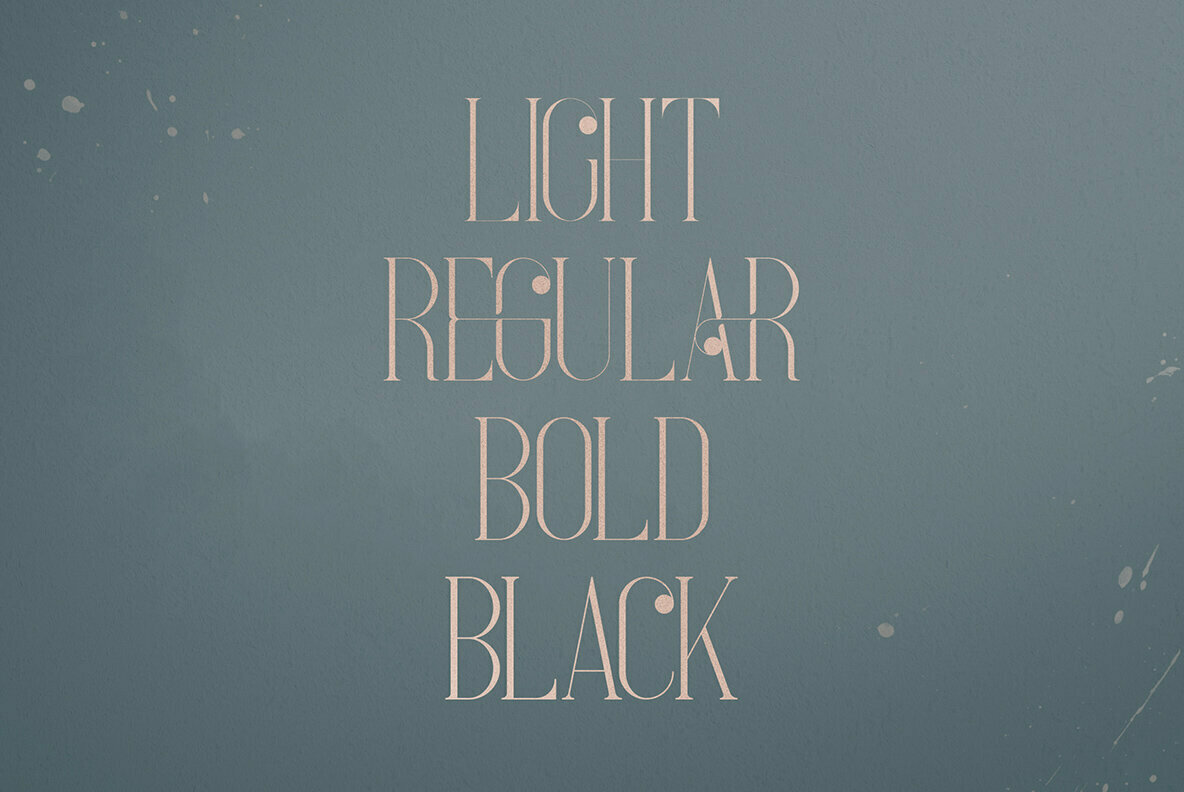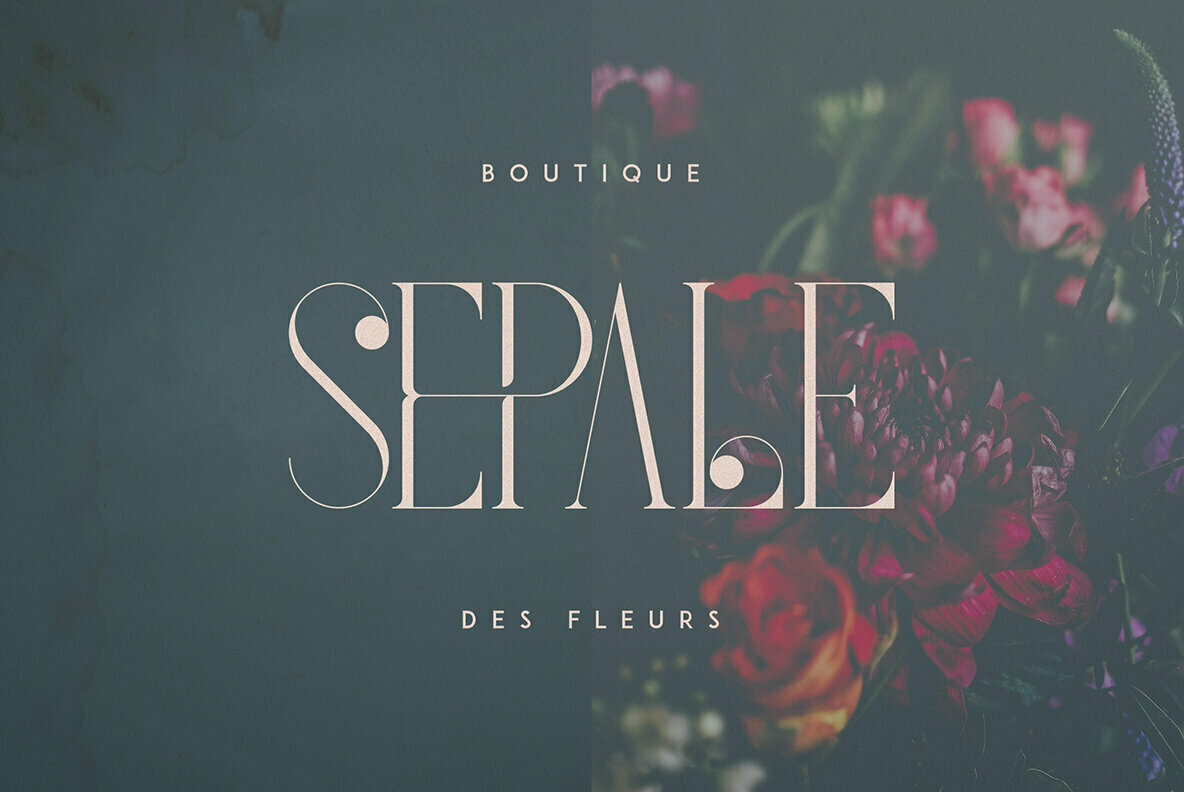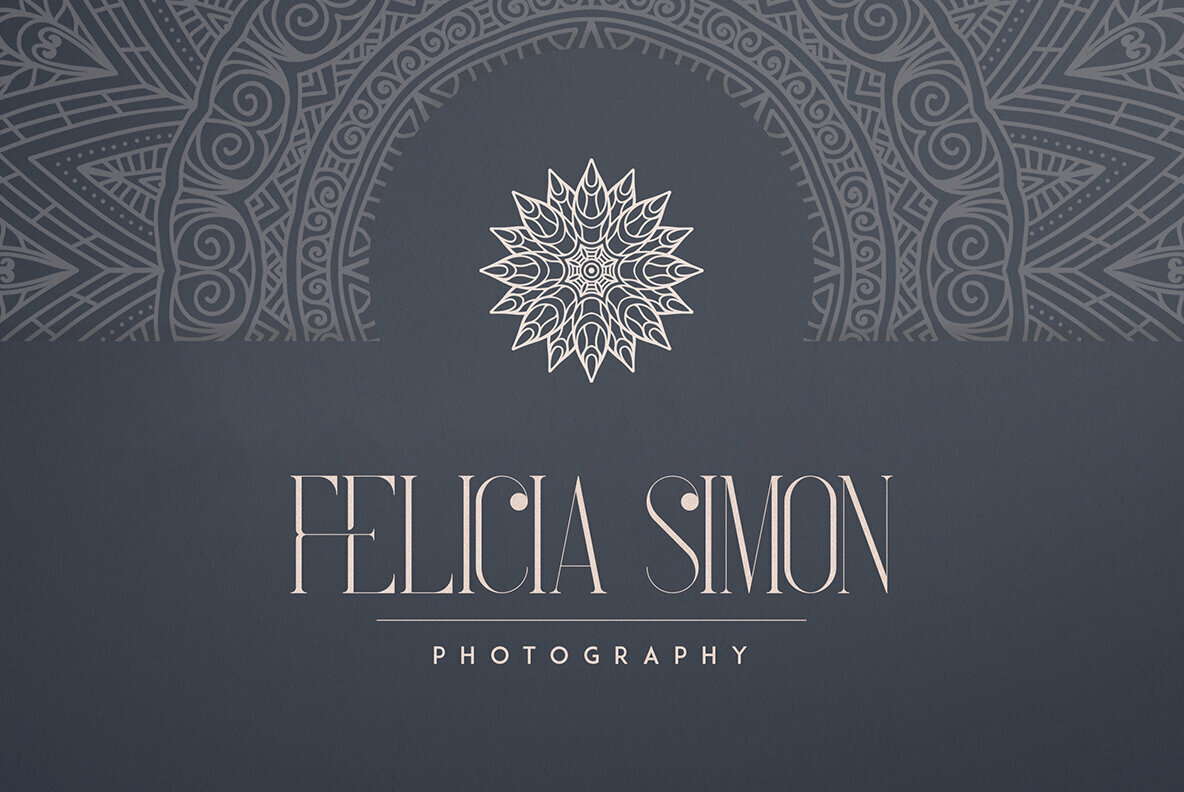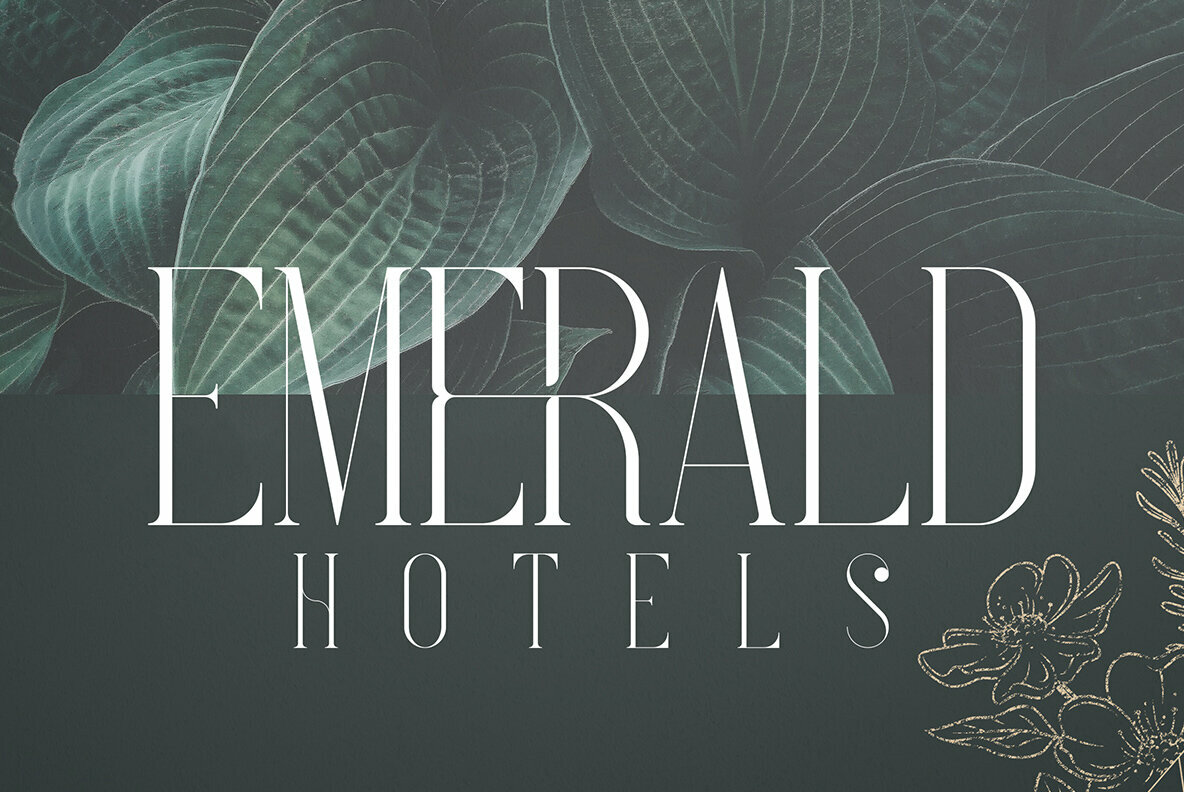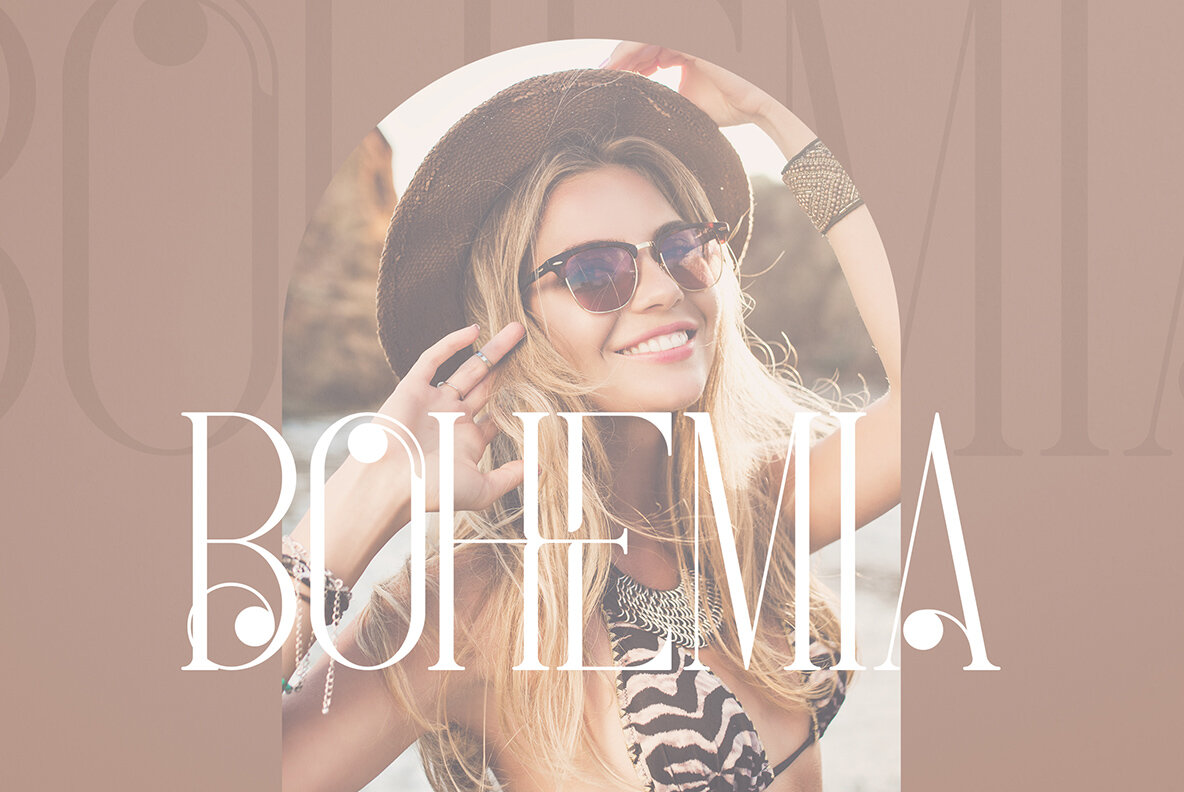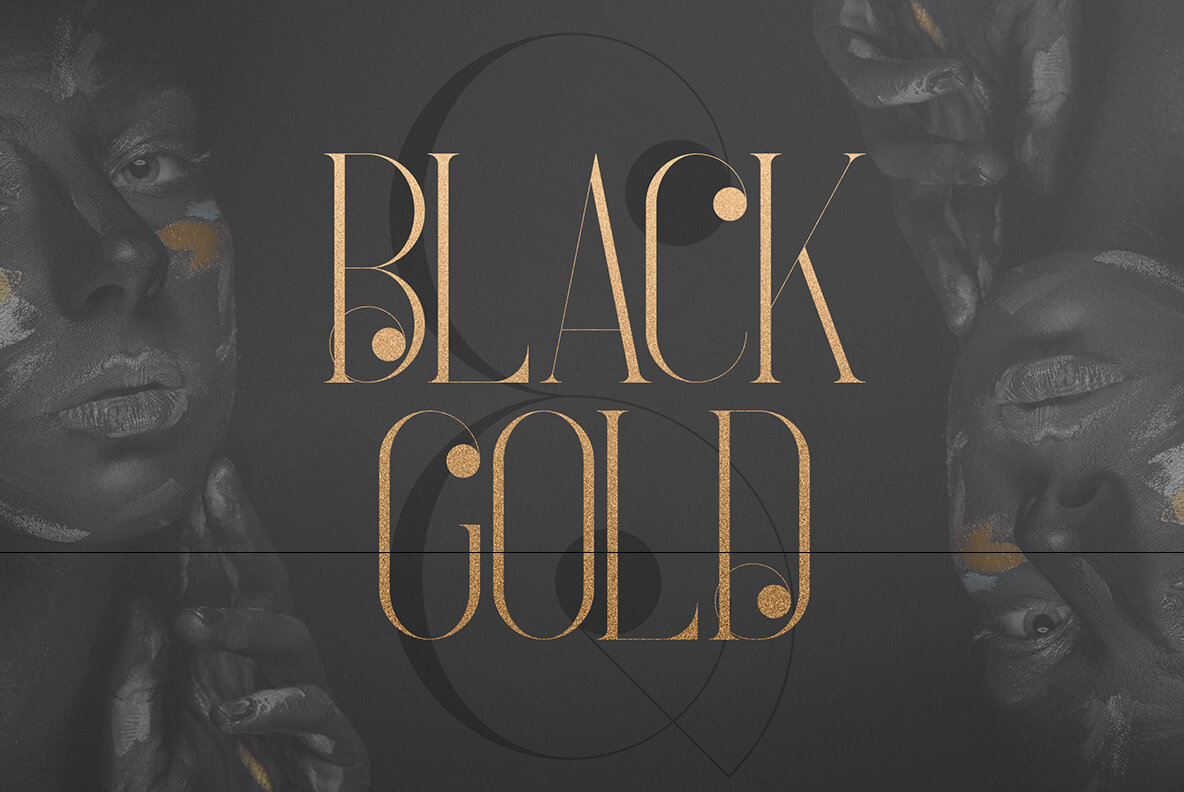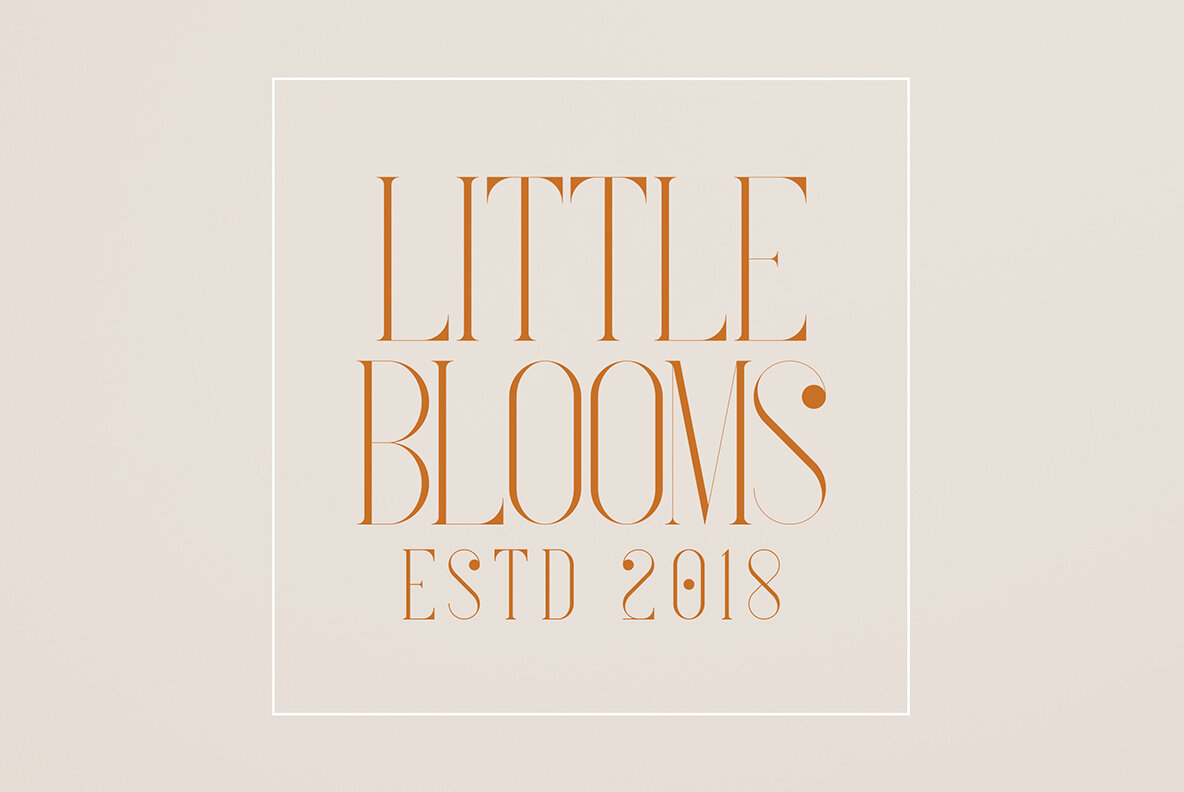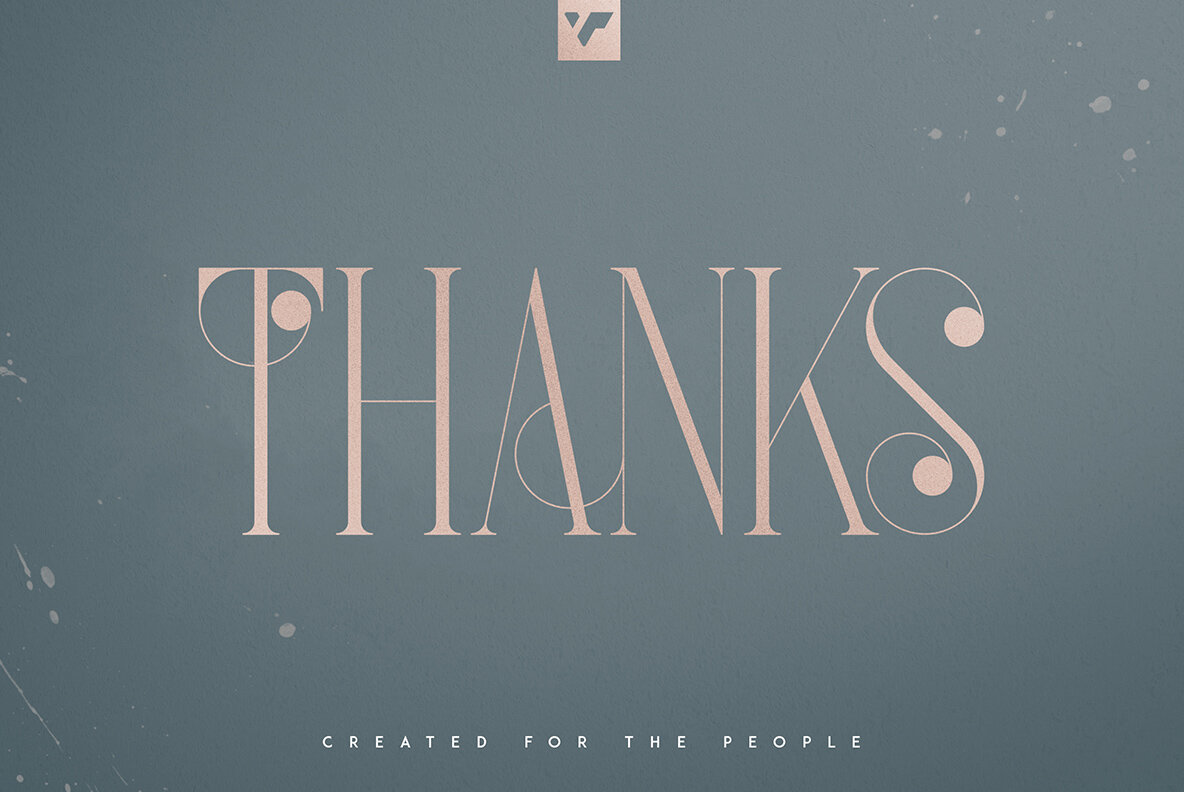
French Font
French VP Light
French VP Regular
French VP Bold
French VP Black
Elevate your design game with French, a luxury serif typeface offering subtle sophistication. Available in four distinct weights, French captivates with a refined presence that complements any creative project. The typeface comes equipped with alternate glyphs, ligatures, and multilingual support, ensuring versatility across diverse applications. Whether it's branding, home decor, product packaging, or as a striking text overlay, French adapts seamlessly to both large and small formats.French Serif Typeface: Elegance in Four Weights